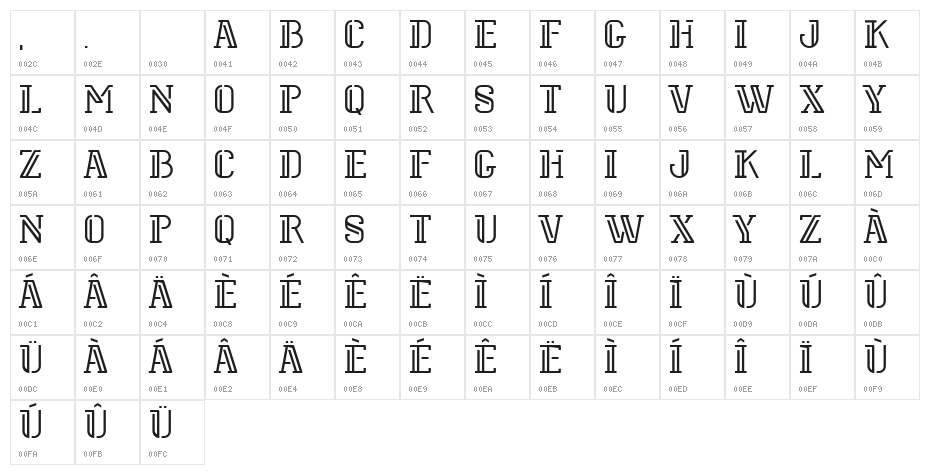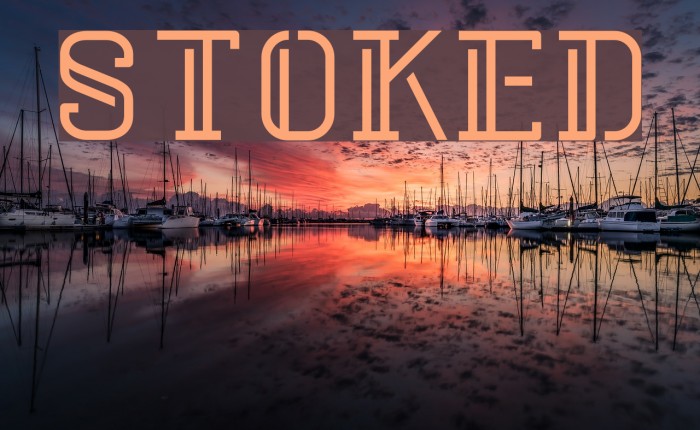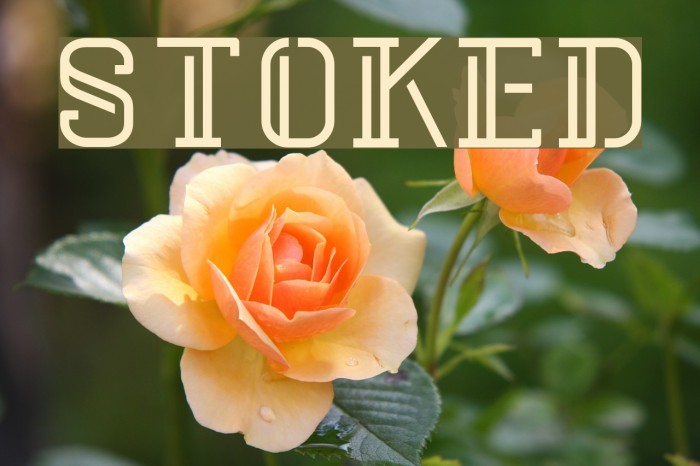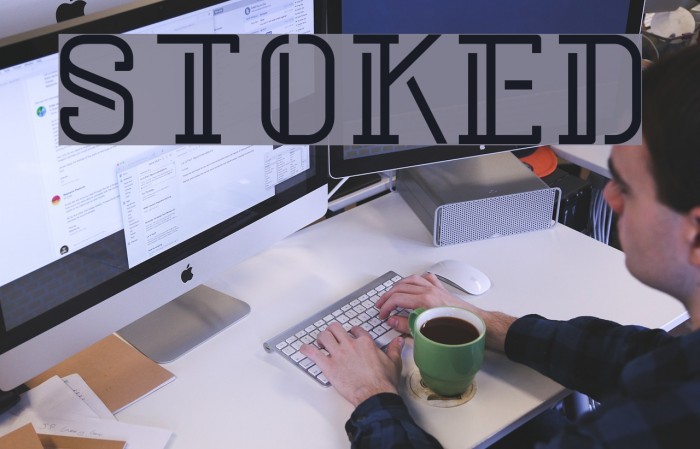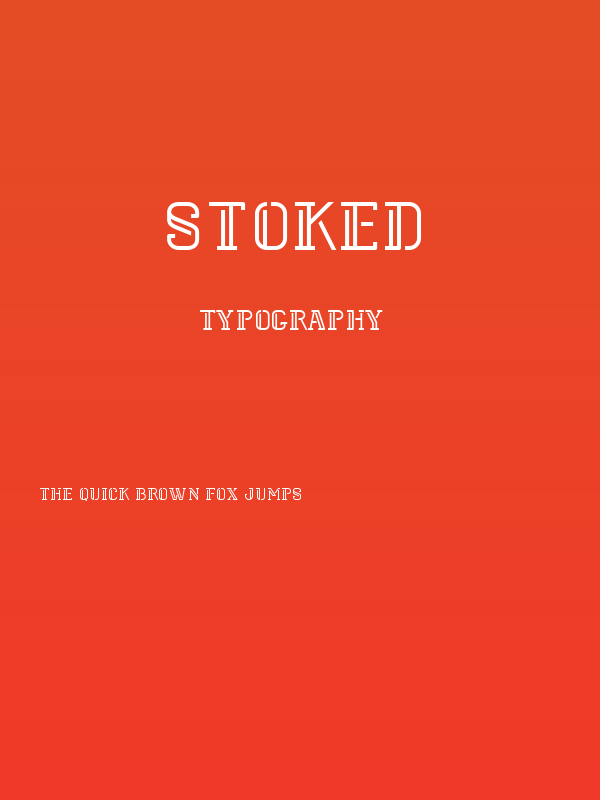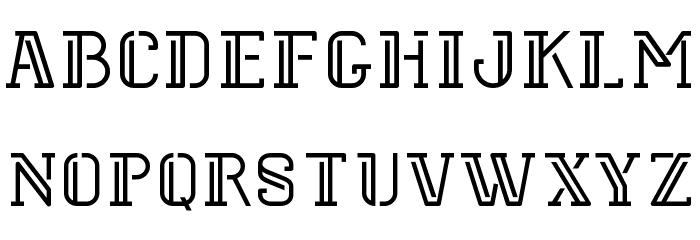
Stoked Font
Stoked Description
This font features a bold, structured design with a distinct industrial feel. The characters are uppercase only, with a consistent width and a geometric style that emphasizes straight lines and sharp angles. The strokes are uniform in thickness, creating a strong visual impact. The font's design is reminiscent of stencil or architectural lettering, making it suitable for projects that require a modern, technical aesthetic. The spacing between characters is normal, allowing for clear readability while maintaining the font's bold presence.
| Proposed Projects | Ideal for branding, signage, posters, and any design that requires a modern, industrial look. |